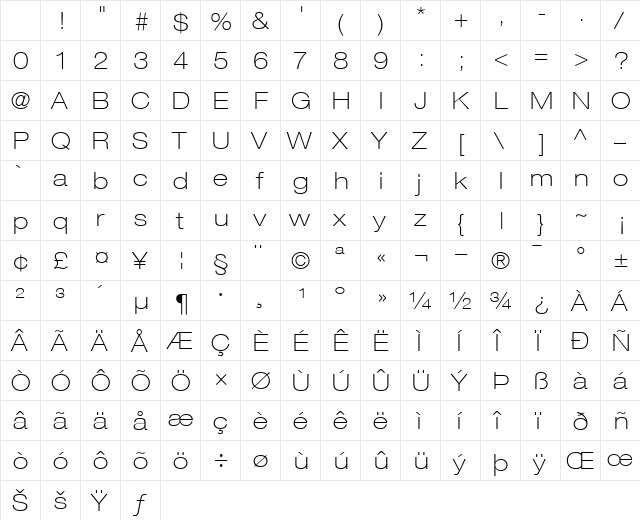
Complete Helvetica33-Extended Thin glyph index. Displaying only characters natively supported by Helvetica33-Extended Thin font.
Helvetica33-Extended is a composed and adaptable typeface that performs quietly and consistently across a wide range of design contexts. Its slender proportions lend an understated elegance to any composition.